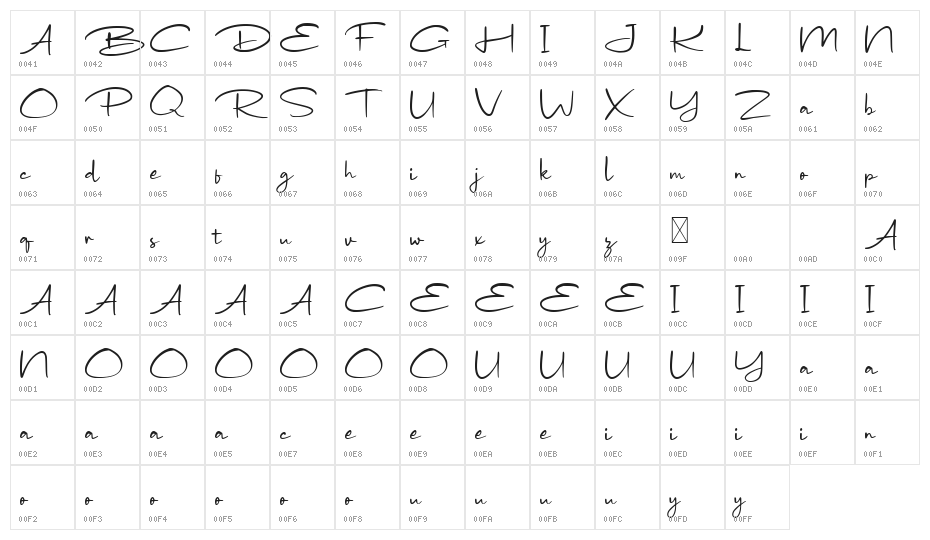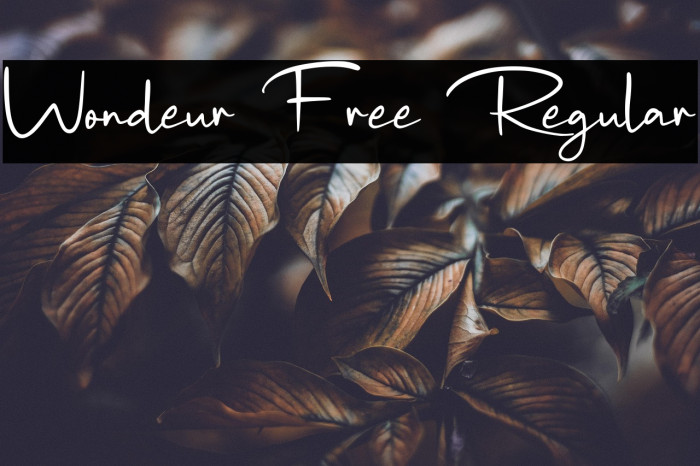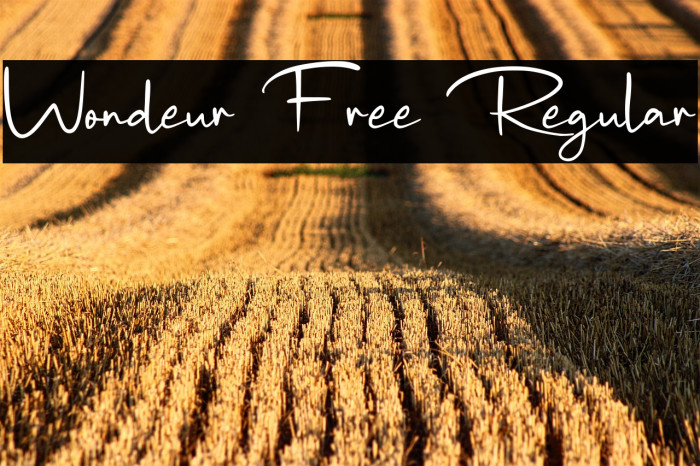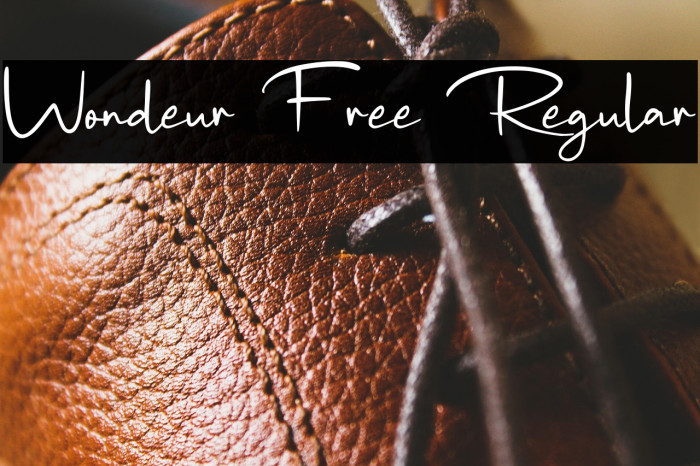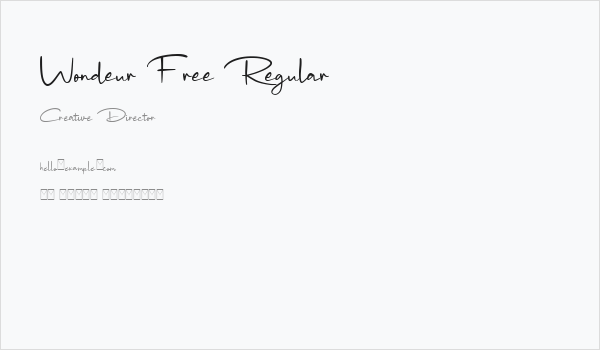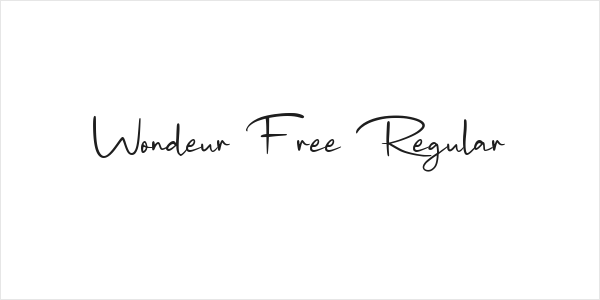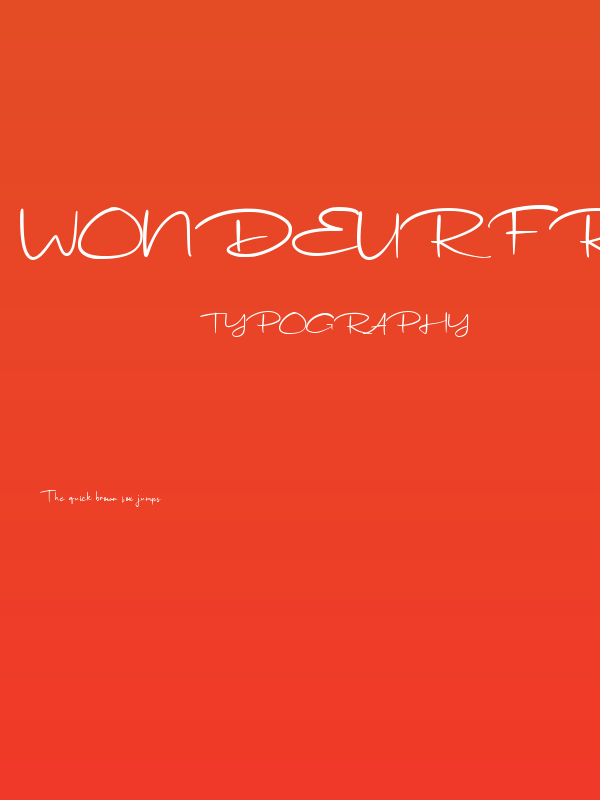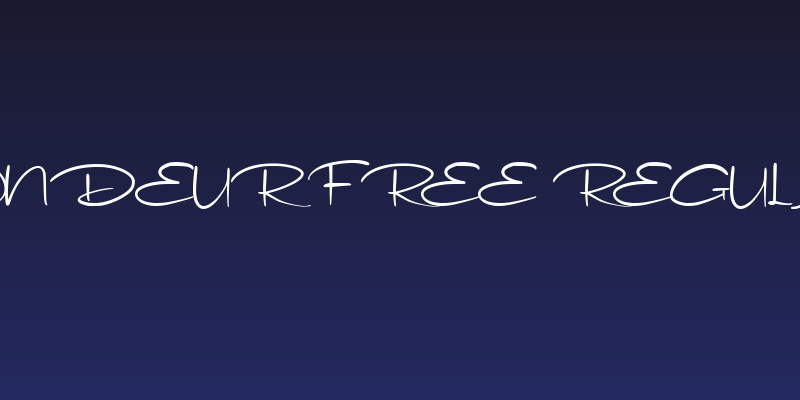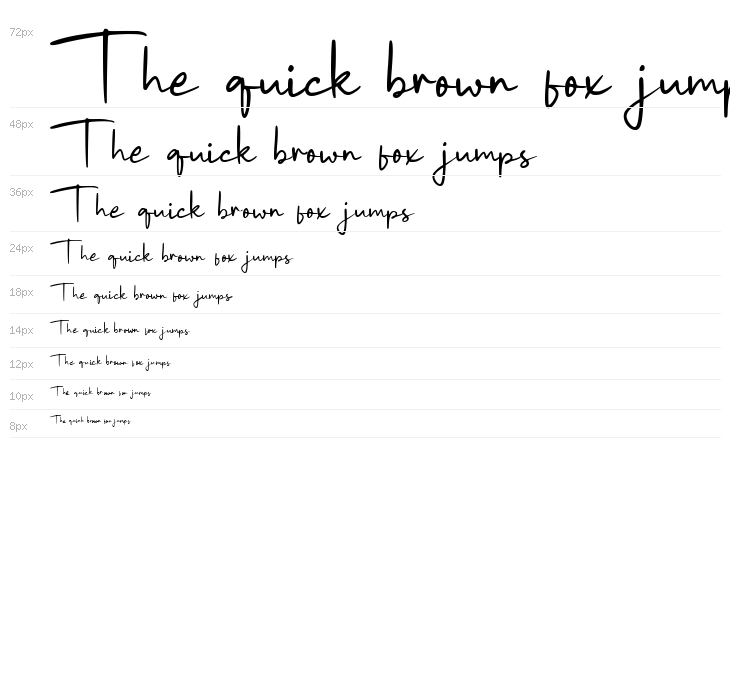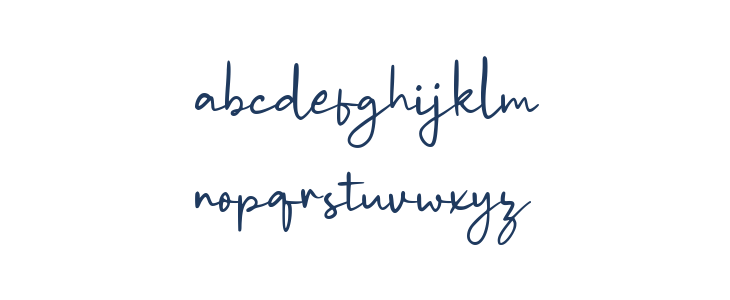
Wondeur Free Regular Font
Wondeur Free Regular Description
This font features a playful and elegant script style with a handwritten appearance. The uppercase letters are characterized by smooth, flowing lines and a slightly whimsical touch, while the lowercase letters maintain a consistent fluidity, enhancing the font's overall charm. The strokes are moderately thick, providing a balanced contrast that makes the text easily readable while retaining its artistic flair. The font's unique personality is evident in its distinctive curves and loops, making it suitable for creative and expressive design projects.